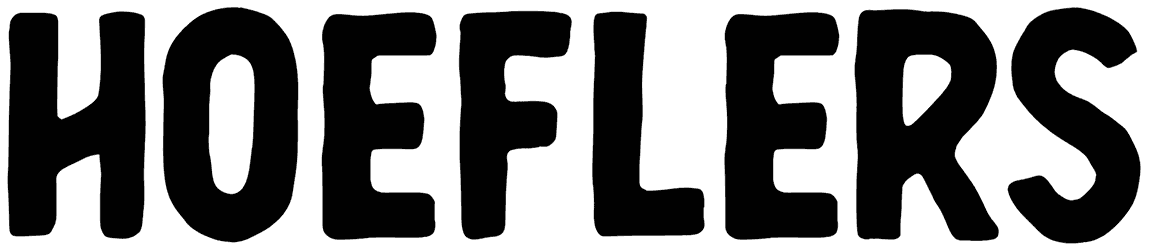
Hoeflers Font
There is nothing better than an eroded font, such as Hoeflers, that shares a sense of jauntiness, fun, and dynamism with the audience. By using this sans serif font in posters, banners, announcements, and flyers, you can easily engage viewers and increase the efficiency of the content. So it is better to enjoy it by just ignoring the lack of lowercase letters, numbers, and punctuation